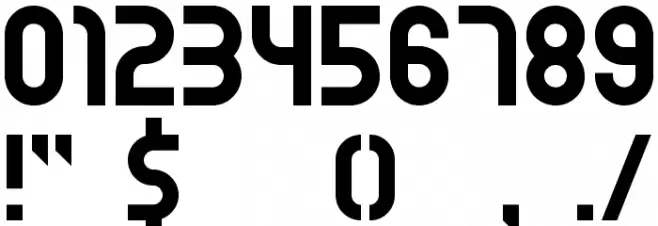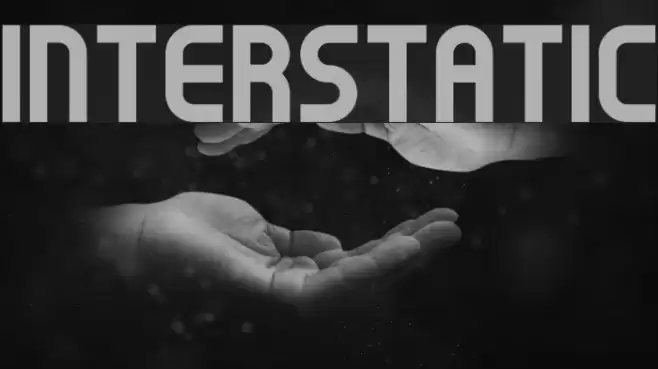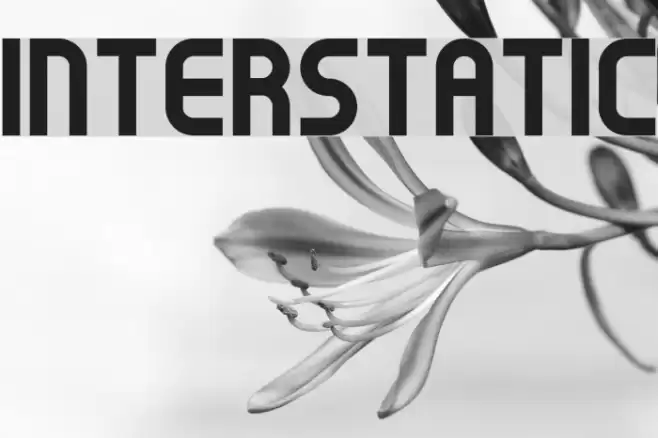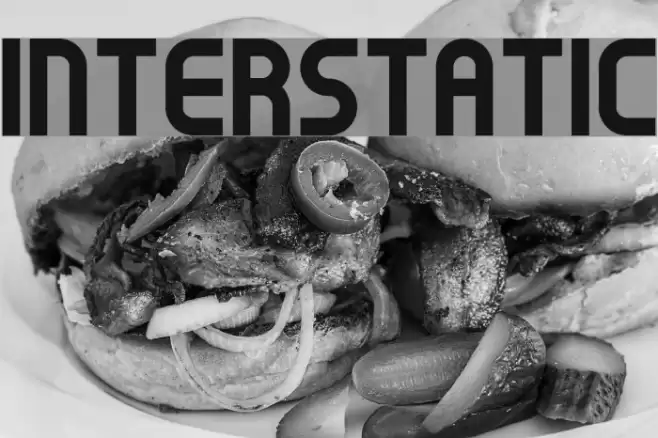
Interstatic Font
Interstatic Description
This font features a bold, geometric design with a modern aesthetic. The characters are constructed with uniform stroke widths, giving a clean and structured appearance. The uppercase and lowercase letters maintain a consistent height, enhancing readability. The numerals and special characters are designed to complement the alphabet, maintaining the same geometric style. This font's strong presence makes it ideal for impactful headlines and branding materials.
| Proposed Projects | Ideal for branding, advertising, and headlines where a strong, modern impression is needed. |